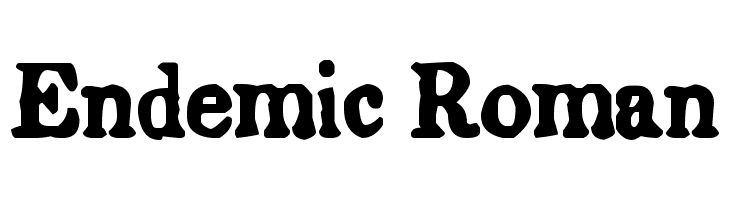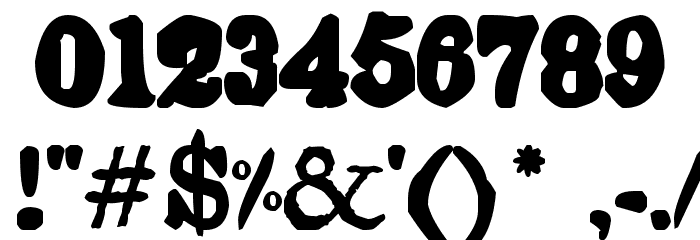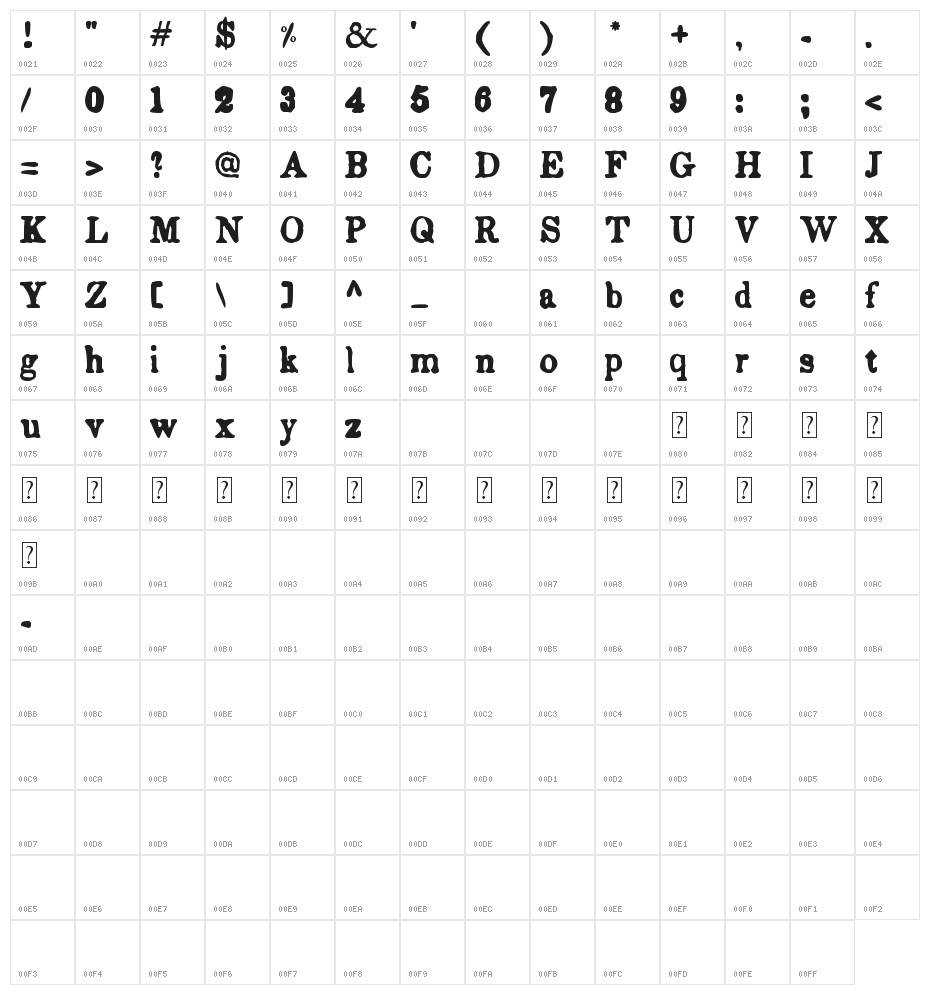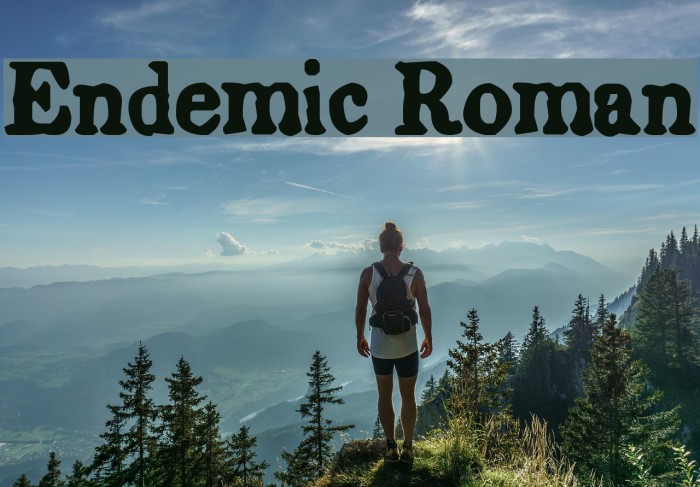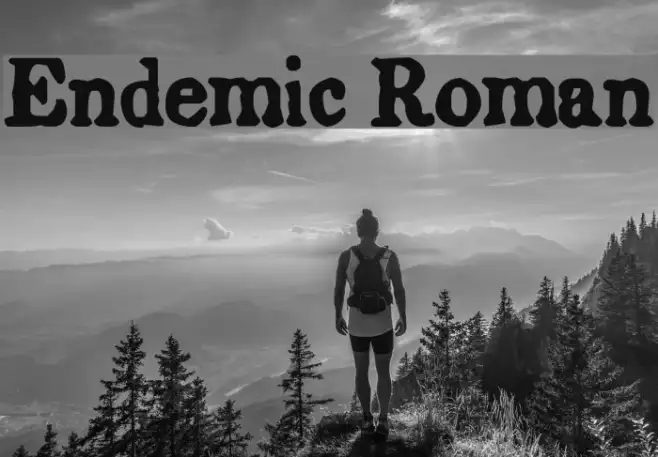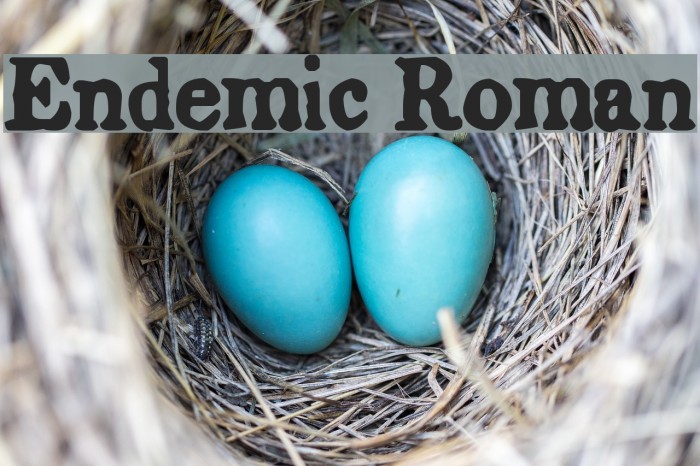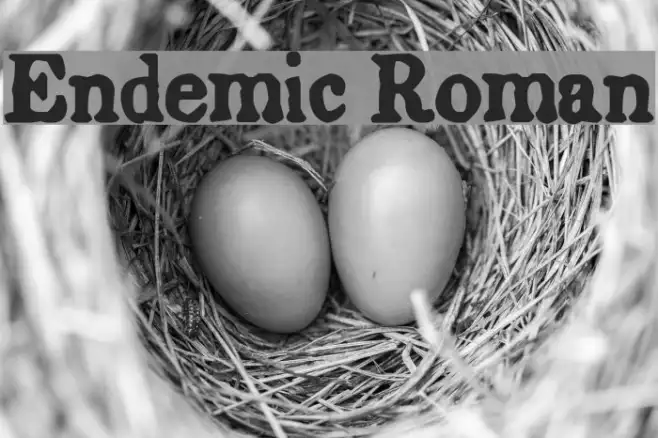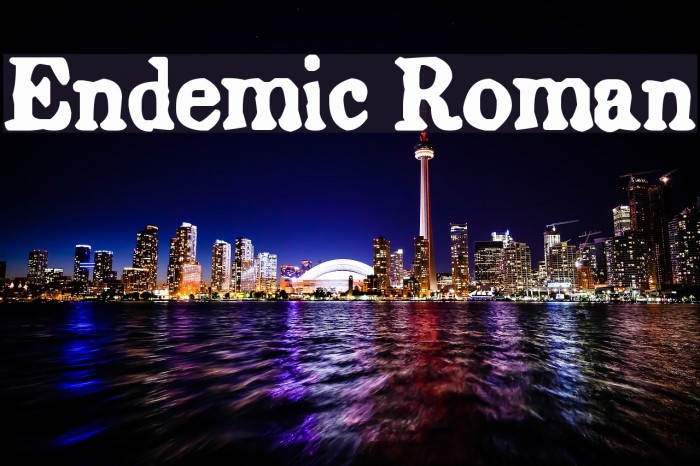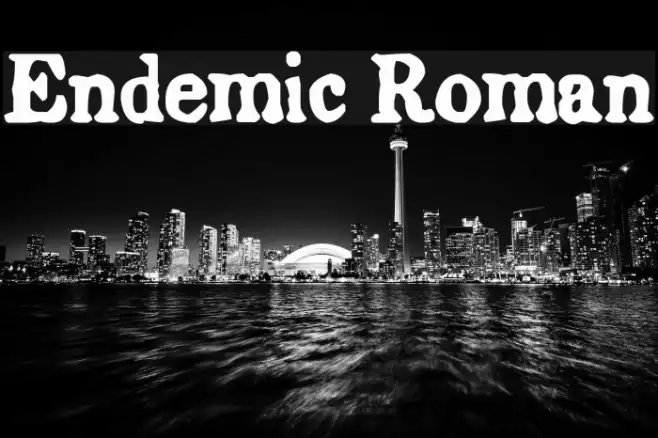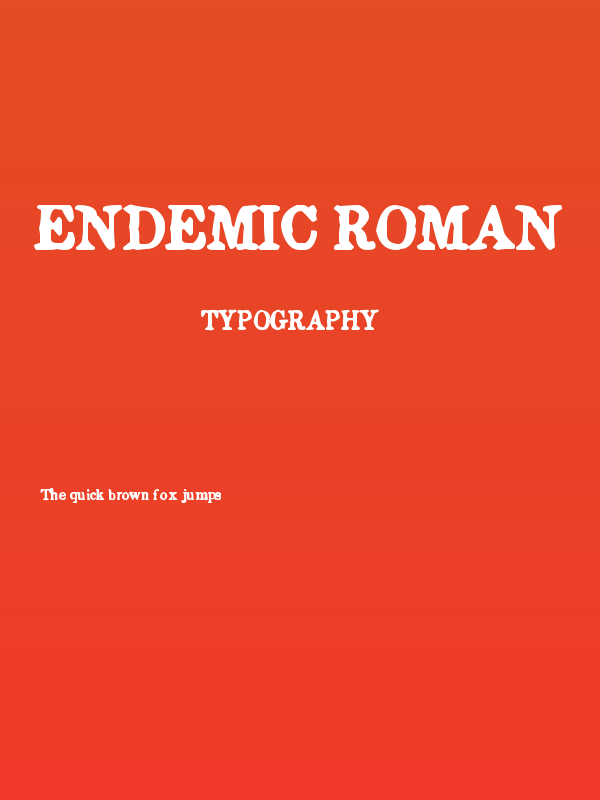
Endemic Roman Font
Endemic Roman Description
This font features a bold and expressive style with thick, uneven strokes that give it a hand-drawn appearance. The characters are robust and slightly irregular, adding a playful and dynamic feel. The uppercase letters are strong and commanding, while the lowercase letters maintain a consistent weight, contributing to the overall boldness. The numerals are equally bold, ensuring visibility and impact. Special characters are creatively designed, maintaining the font's unique aesthetic. This font is ideal for projects that require a strong visual presence.